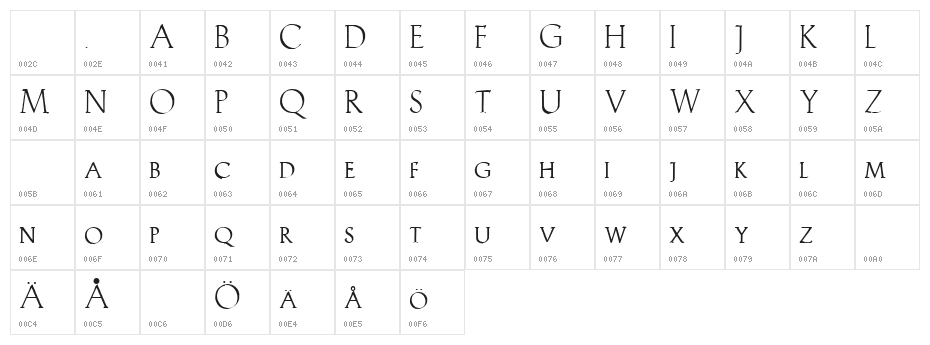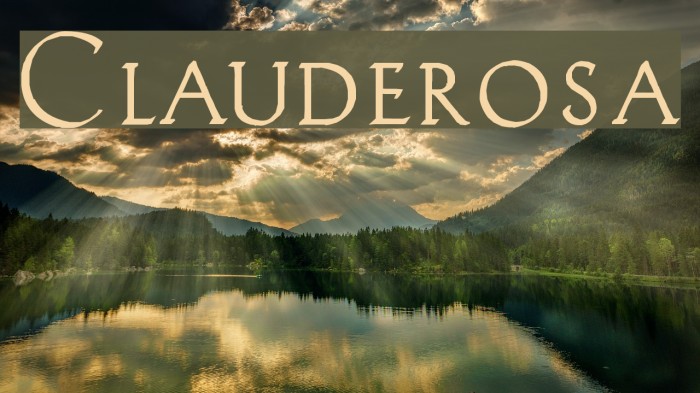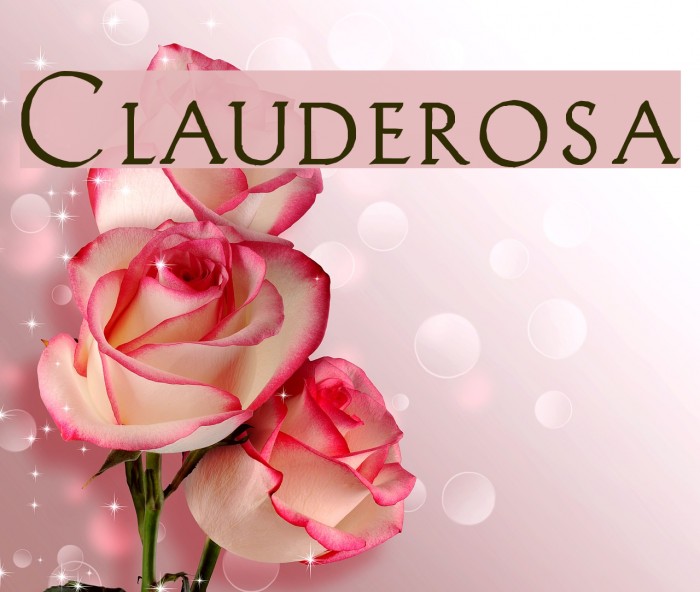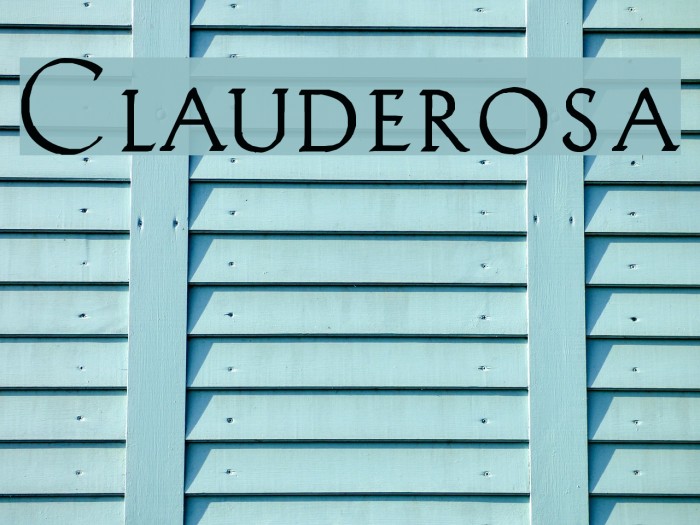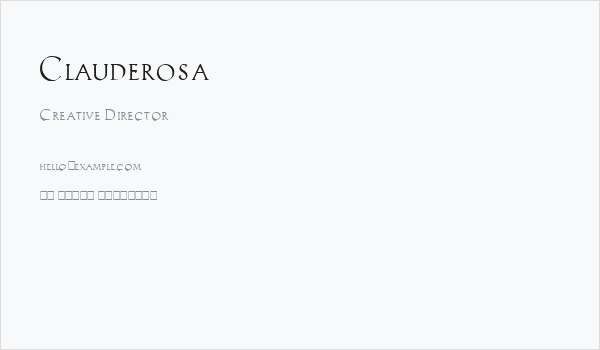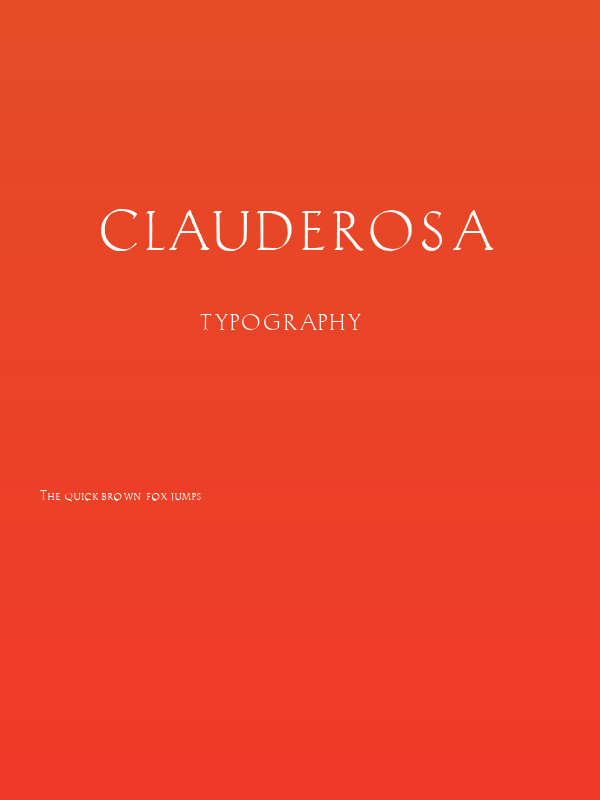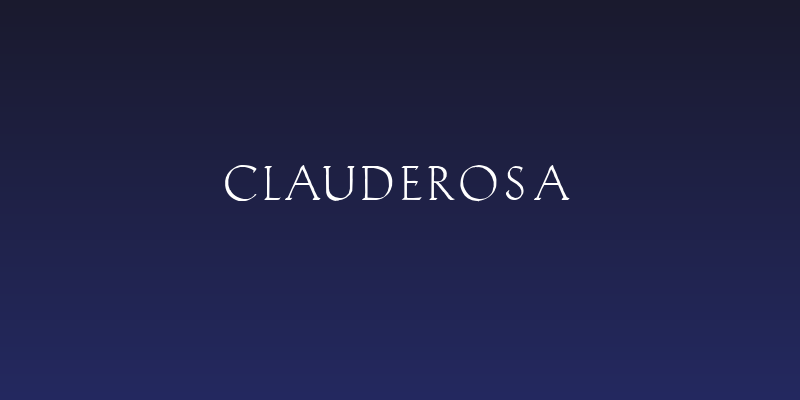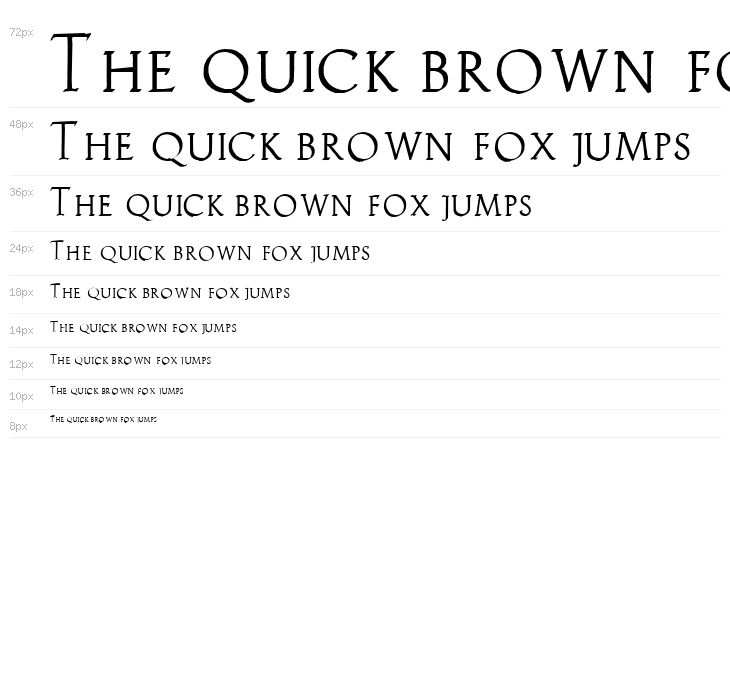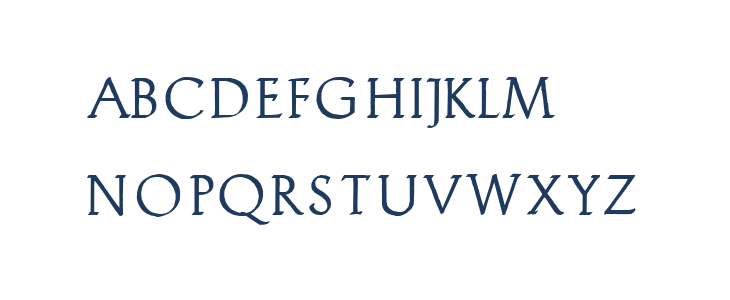
Clauderosa Font
Clauderosa Description
This font exhibits a classic serif style with elegant and refined strokes. The uppercase letters are characterized by their traditional serifs, providing a sense of formality and sophistication. The lowercase letters maintain a consistent style, complementing the uppercase with a slightly more delicate touch. The numerals are clear and legible, making them suitable for various applications. The overall design is balanced, with a medium contrast between thick and thin strokes, adding to its readability and aesthetic appeal.
| Proposed Projects | Ideal for formal documents, book titles, invitations, and branding materials that require a touch of elegance. |